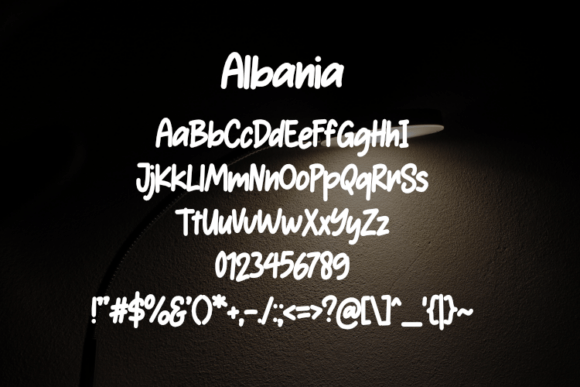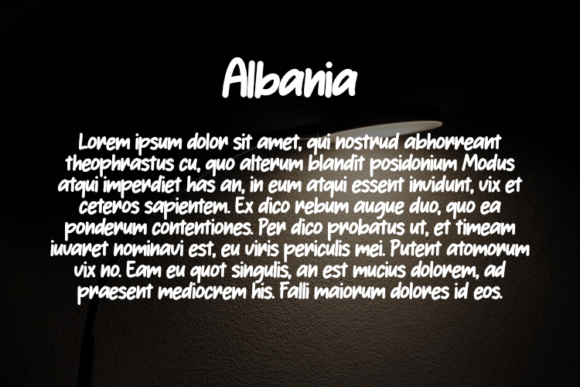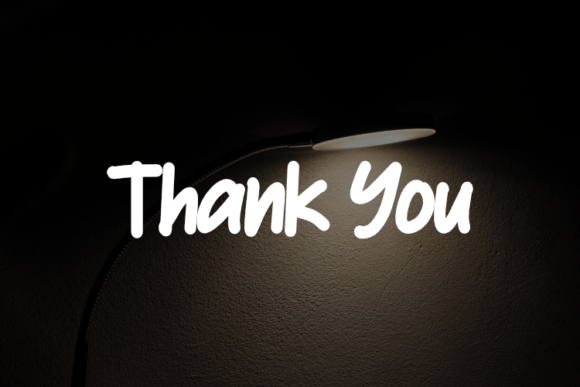
Introducing Albania: The Versatile Font That Elevates Your Designs
Have you ever been in the middle of a design project, and suddenly, you’re stuck on finding the perfect font? I recall a recent experience where I was working on a t-shirt design for a client, and no matter how hard I tried, I just couldn’t find a font that captured the essence of the brand. That’s when I discovered Albania, a game-changing font that has become an indispensable part of my design toolkit.
The Birth of Albania
An Honest Review of Albania
So, what makes Albania stand out? Let’s dive into the good stuff and a few quirks I’ve encountered.
- ✨ Versatility: Albania effortlessly complements a wide range of design styles, from minimalist to elaborate.
- ✅ Elegance: The font adds a touch of sophistication to any project, making it perfect for high-end brands or personal designs.
- 🔍 Extensive Glyphs: With a rich collection of glyphs and stylistic alternates, Albania offers endless possibilities for creative expression.
While Albania has won me over, there are a couple of things to keep in mind:
- ⚠️ Learning Curve: With so many features and glyphs, it might take some time to get familiar with all that Albania has to offer.
- 🤔 Pairing with Other Fonts: Due to its unique texture, finding the perfect pairing font can require some experimentation.
The story behind Albania’s creation is one of passion and a desire to bridge the gap between style and typography. The designer, inspired by the rich cultural heritage and natural beauty of Albania, aimed to create a font that not only stands out but also tells a story through its unique texture and elegant lines.
| Is Albania suitable for body text? | While Albania shines in titles and headings, its readability in body text depends on the specific project and design context. It’s best used in combination with another font for body text. |
Albania is more than just a font; it’s a creative tool designed to bring your designs to life. With its versatility, elegance, and extensive features, it’s poised to become a favorite in your design arsenal. Give Albania a try and experience where style meets typography!